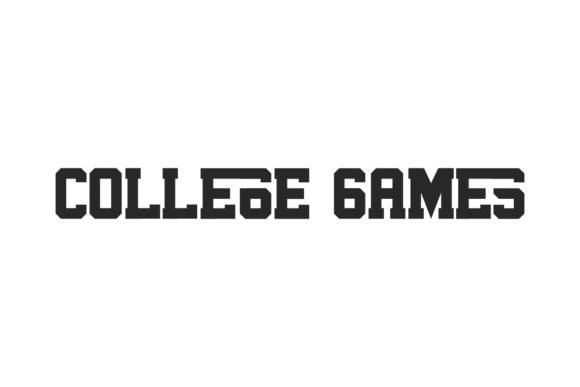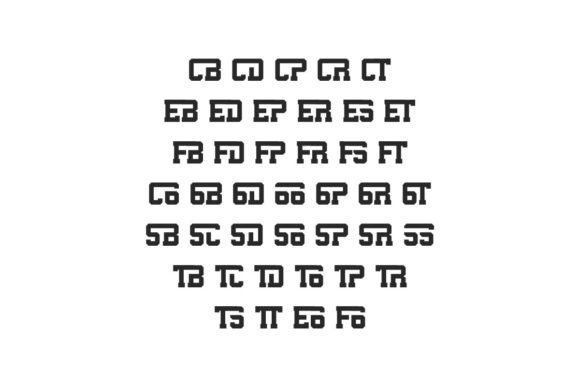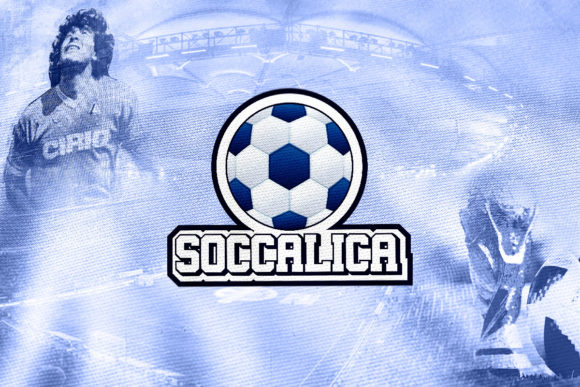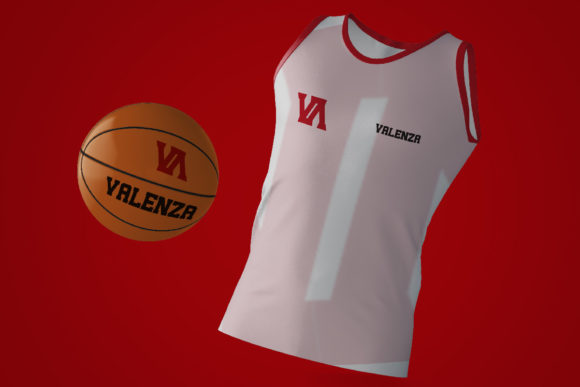
The Perfect Touchdown for Your Designs
Do you remember the rush of excitement you felt when you finally nailed that creative project? The sense of pride and accomplishment that comes with bringing an idea to life is unbeatable. For designers, it’s not just about meeting a deadline, but about creating something that truly stands out. And that’s where the College Games Font comes in – a bold, thick lettered and sporty slab serif font that’s guaranteed to score big with your audience.
Whether you’re working on a sports-themed project or just want to add some extra oomph to your design, the College Games Font is the perfect addition. With its PUA encoding, you’ll have access to all the glyphs and swashes you need to take your design to the next level. As a designer, you know how valuable it is to have a versatile font that can elevate your work and make it truly memorable.
College Games Font Key Features
- Unique Characteristics: The font features a unique blend of modern and classic elements, with a bold and playful feel that’s perfect for sports-themed designs, logos, and branding materials.
College Games Font Review
As a designer, I’m always on the lookout for fonts that can bring a unique touch to a project. The College Games Font is one such font that caught my attention. Here’s my honest review of this font.
- ✨ The font has a fun, energetic vibe that’s perfect for sports-themed projects or university branding.
- ✨ The letterforms are well-designed, with clean lines and clear typography.
- ✨ The font comes in a range of weights, making it versatile for different design applications.
- ⚠️ The font may not be suitable for formal or professional projects, as it can come across as too playful or childish.
- ⚠️ The font may not be compatible with all operating systems or devices, which could lead to display issues.
I think the College Games Font is a great choice for designers who want to add a bit of personality to their projects. While it may not be the best fit for every project, it’s definitely worth considering for sports-themed or university branding projects. With a little creativity, you can use this font to create some really engaging and fun designs.
The College Games Font is ideal for use in sports-related designs, such as:
– Scoreboards and scorecards
– Sports jerseys and apparel
– Posters and flyers for sports events
For optimal results, use the College Games Font in conjunction with bold, bright colors to create a dynamic and eye-catching design.
Alternatives to College Games Font
Open Sans is a clean and modern sans-serif font designed by Steve Matteson. It’s highly legible and works well for both on-screen and print media. Use Open Sans for digital products, websites, and applications where a clean and modern look is desired. It’s more versatile than College Games Font and can be used in a wider range of contexts.
Montserrat is a sans-serif font inspired by the urban environment of Buenos Aires. It’s highly readable and features a strong, geometric design. Use Montserrat for digital products, websites, and applications where a strong, urban feel is desired. Montserrat is more versatile than College Games Font and can be used in a wider range of contexts.
Inter is a geometric sans-serif font designed by Rasmus Andersson. It’s highly legible and features a clean, modern design. Use Inter for digital products, websites, and applications where a clean and modern look is desired. Inter is more versatile than College Games Font and can be used in a wider range of contexts.